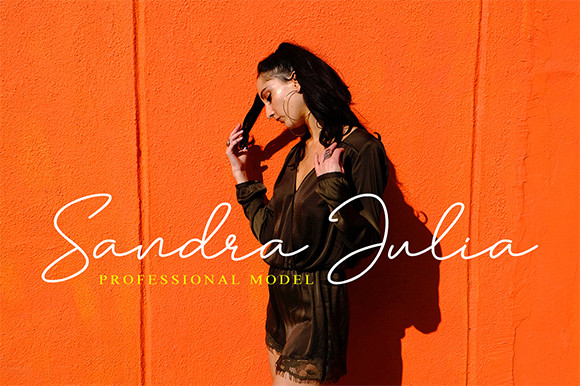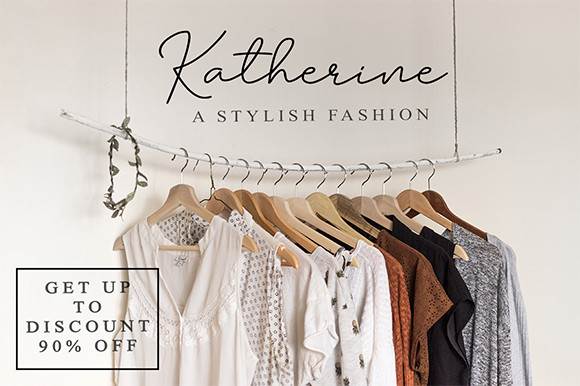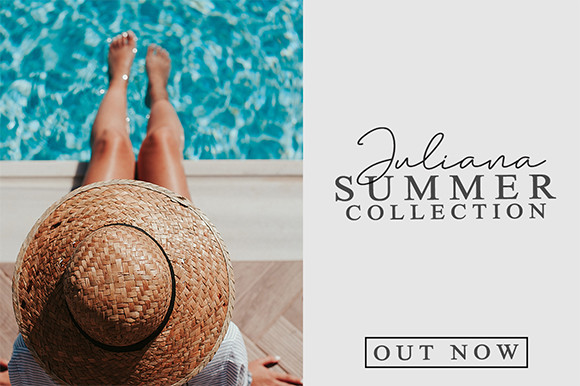
Andalusia Script Font
Hello! This is our newest product called Andalusia Script Font. Andalusia font is a sweet and simple script with a romantic feel. Fall in love with its raw authenticity!